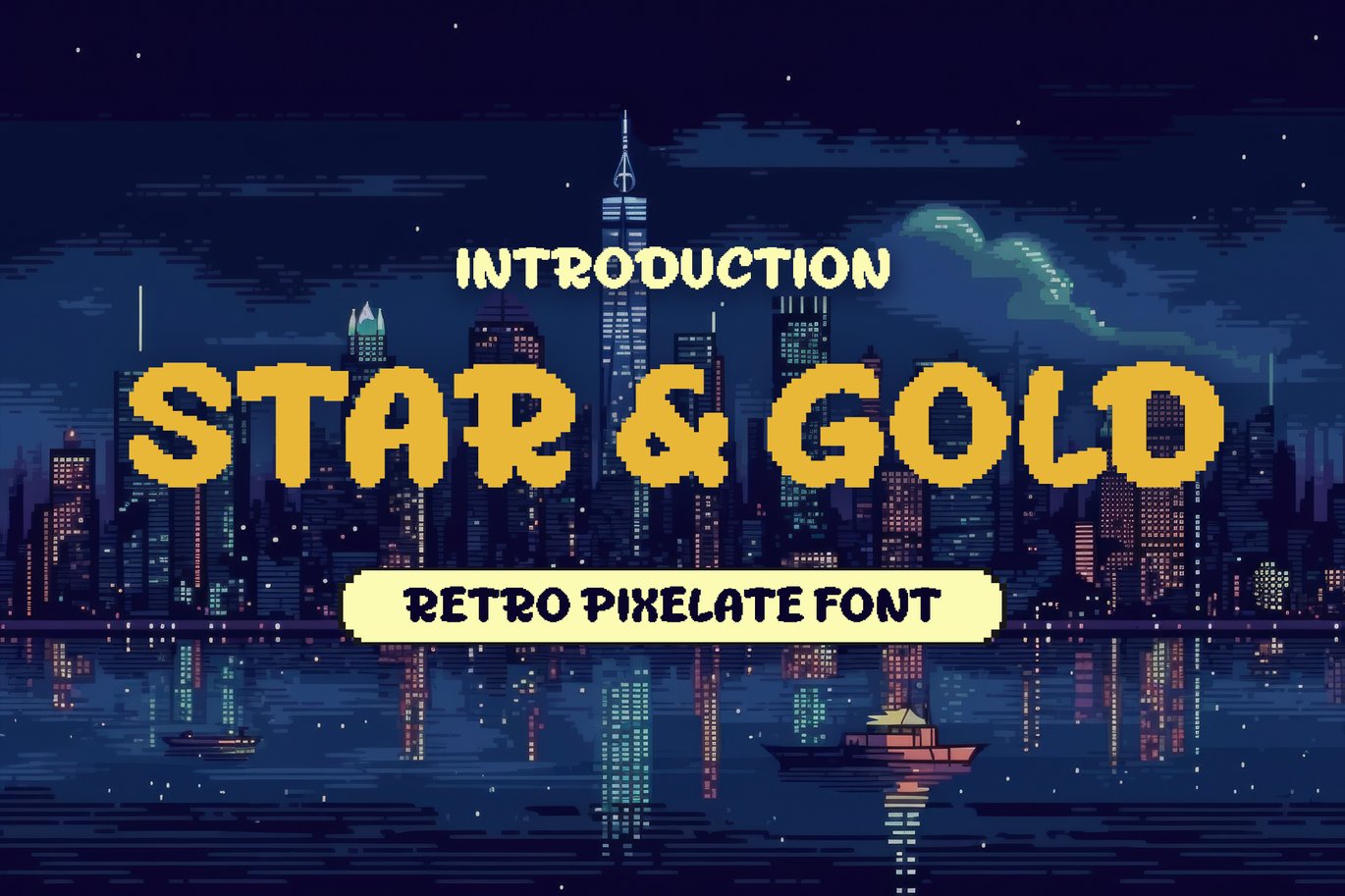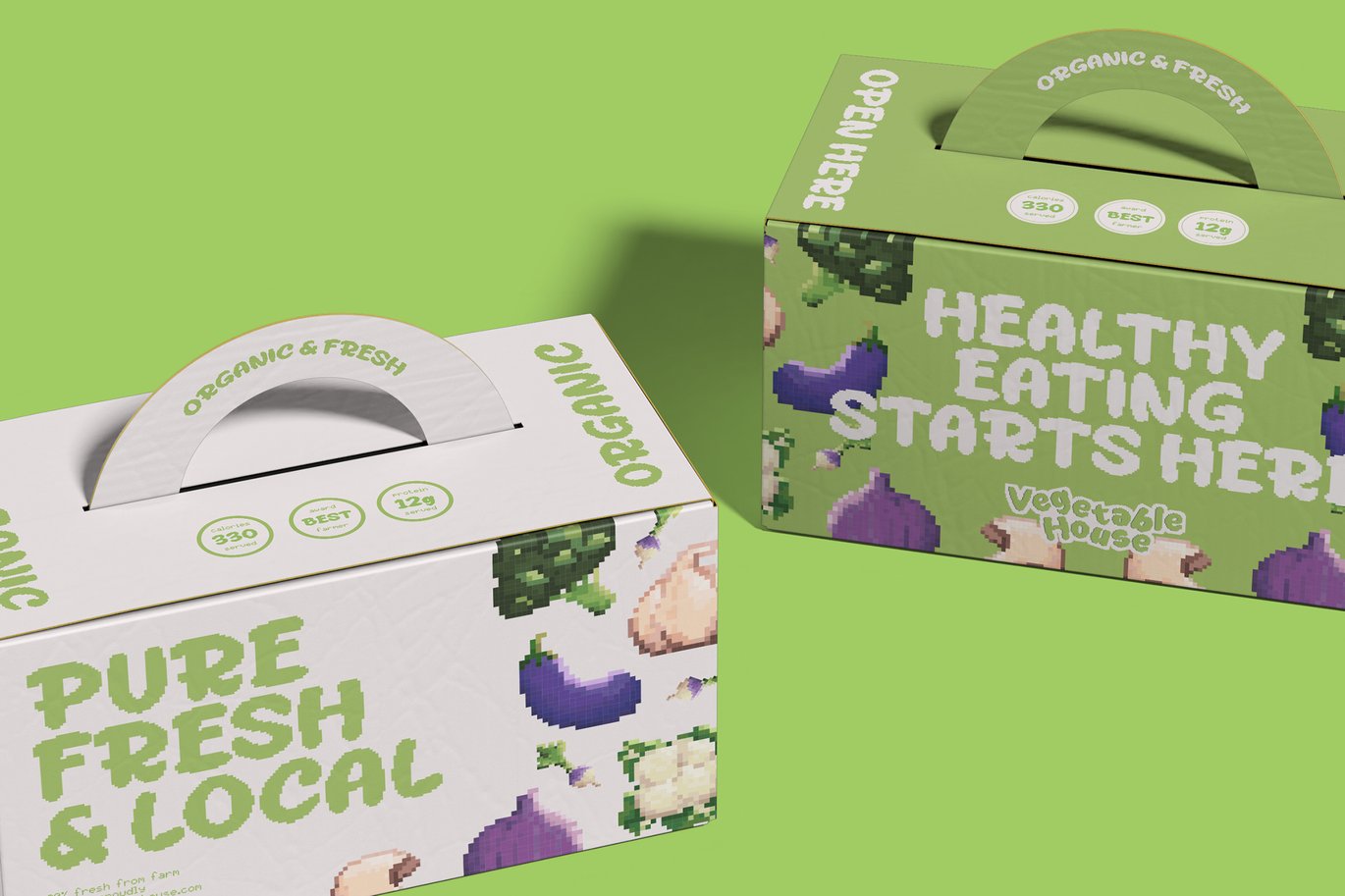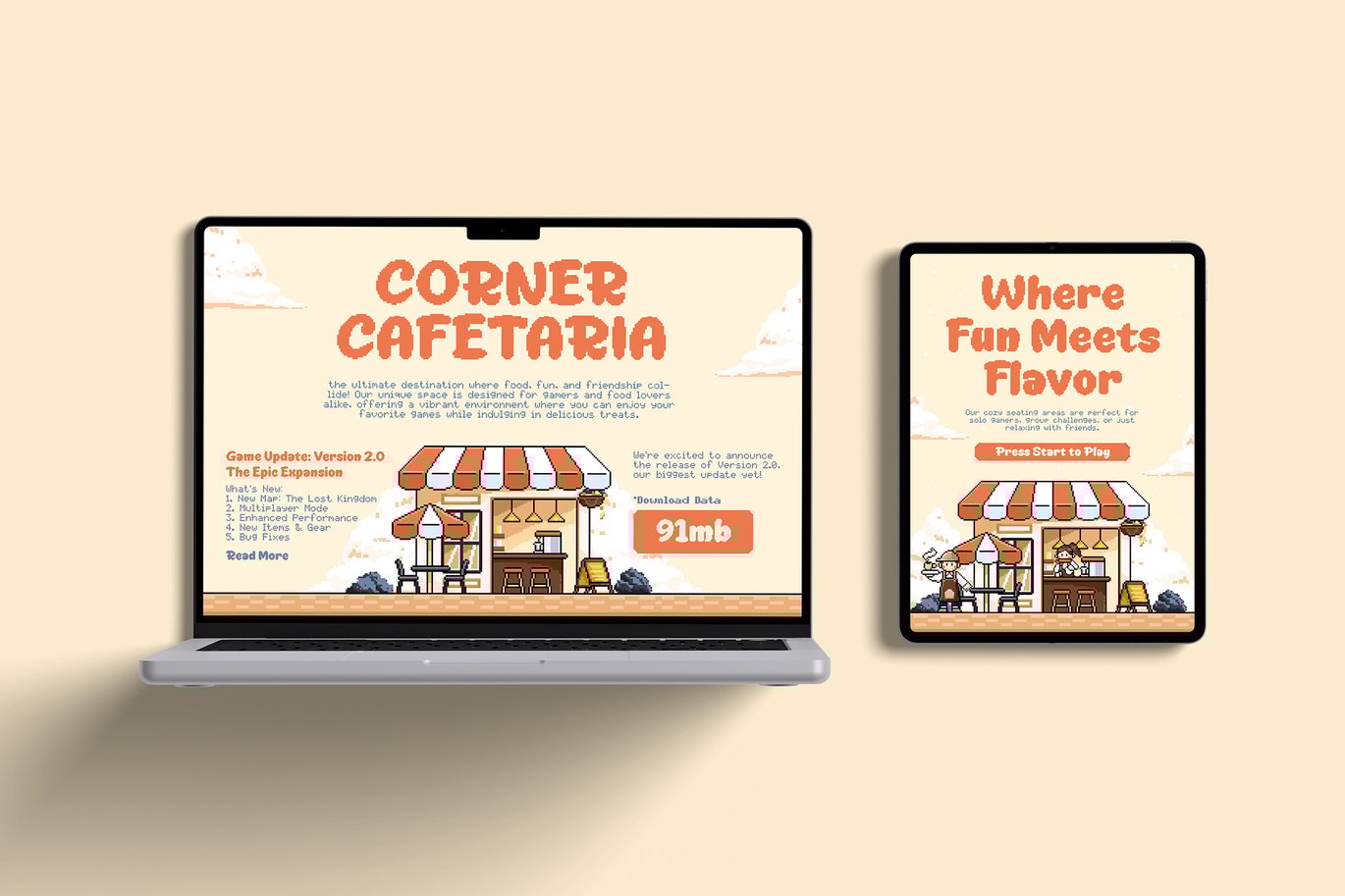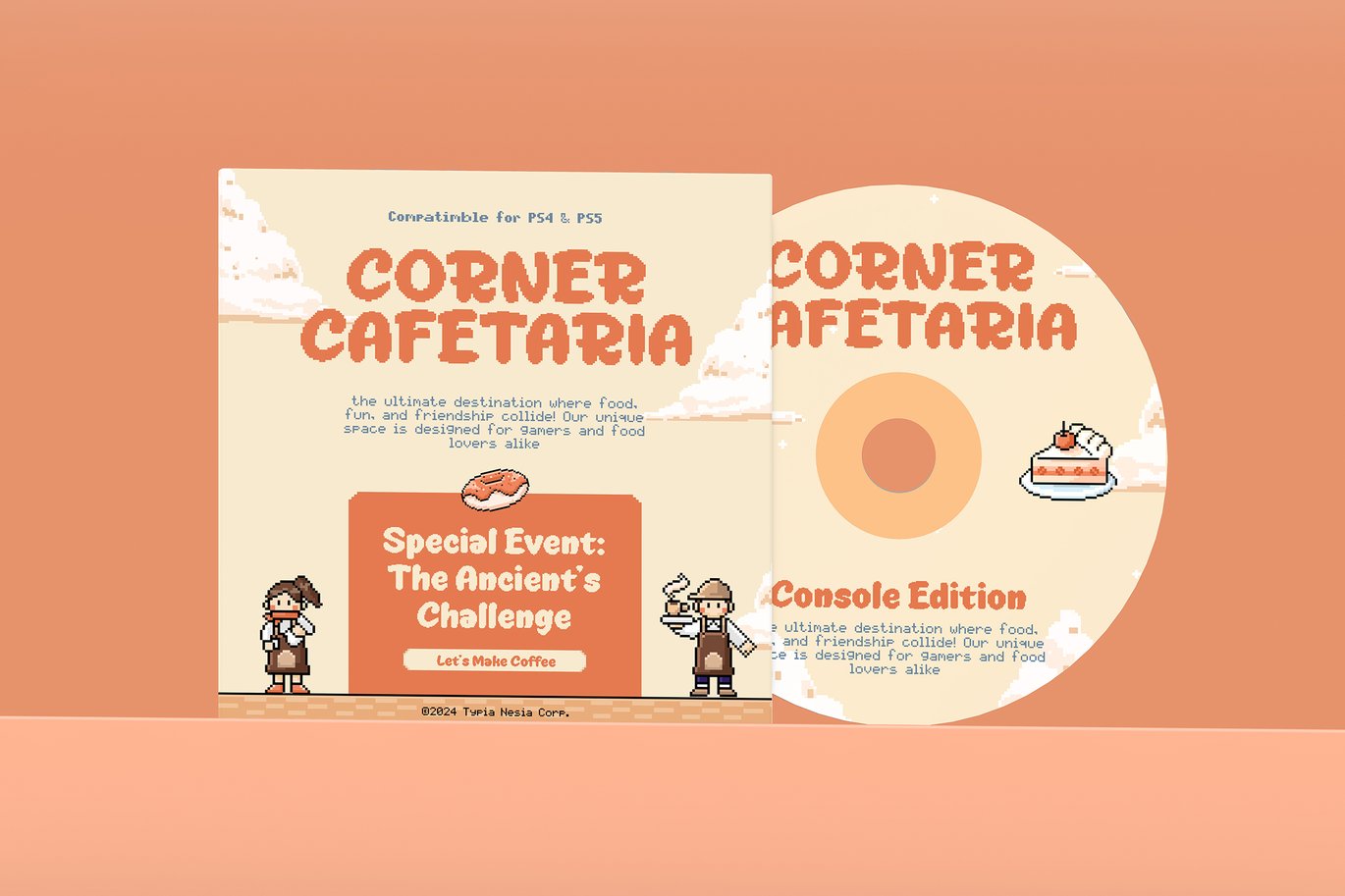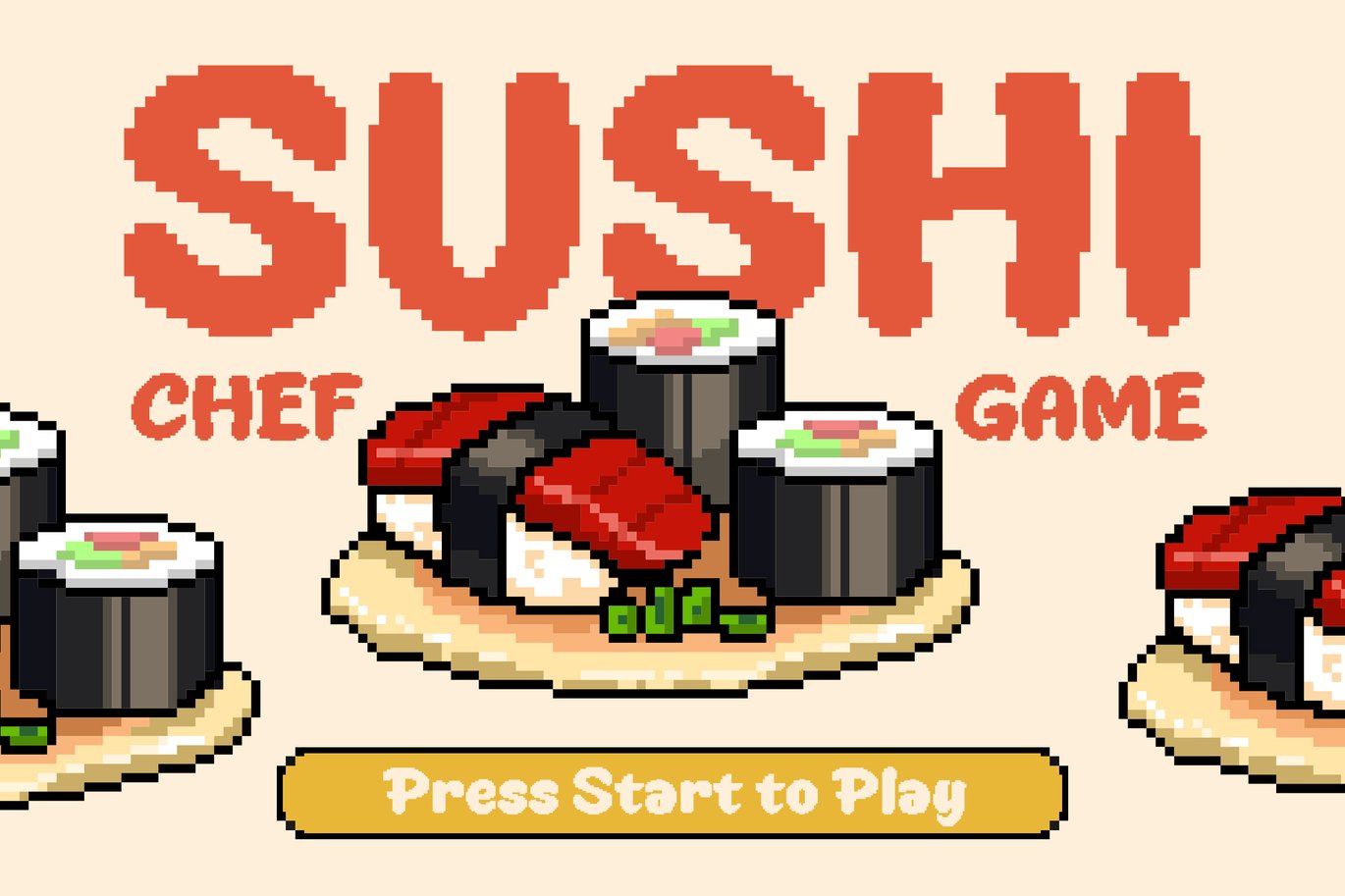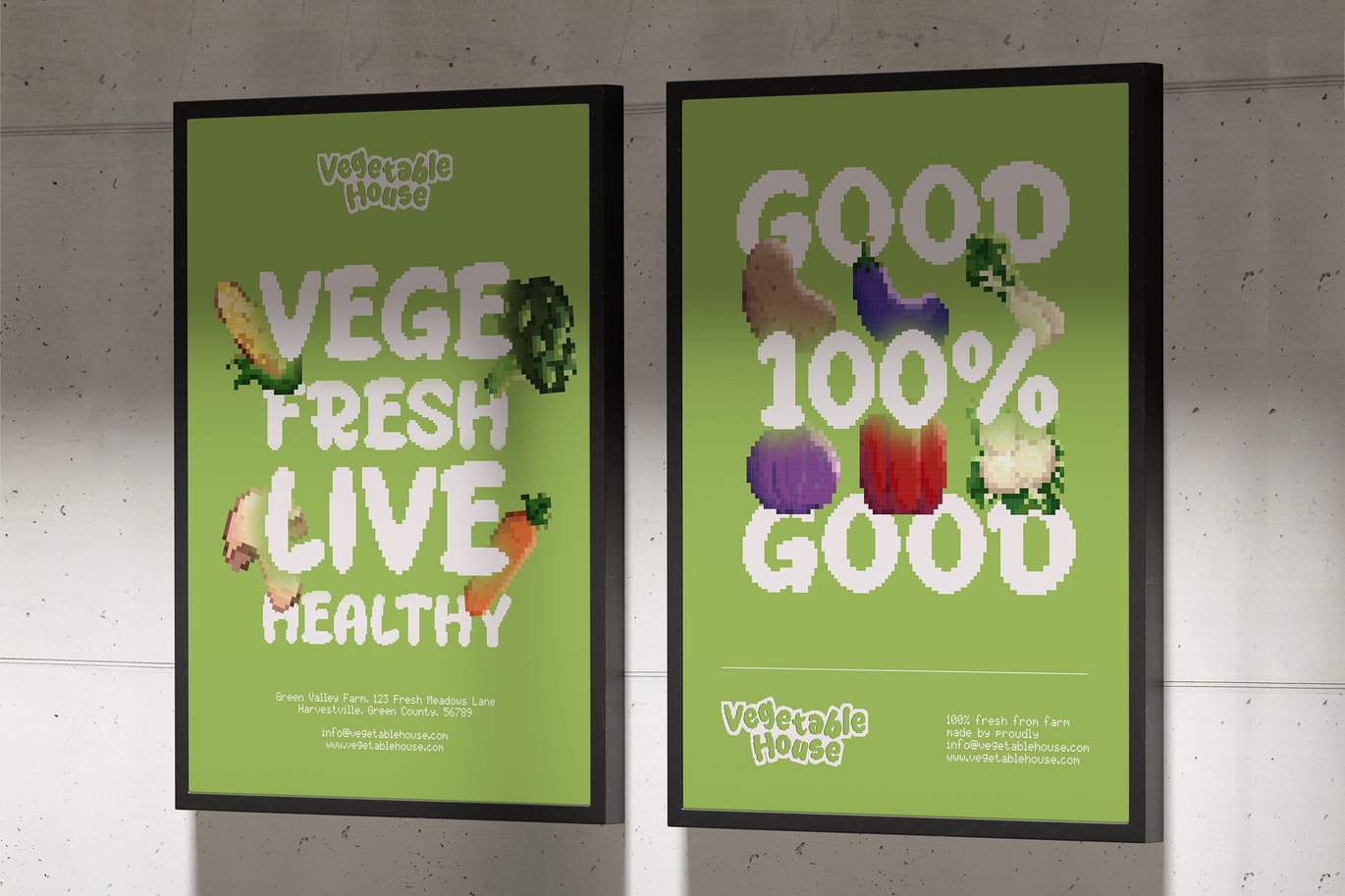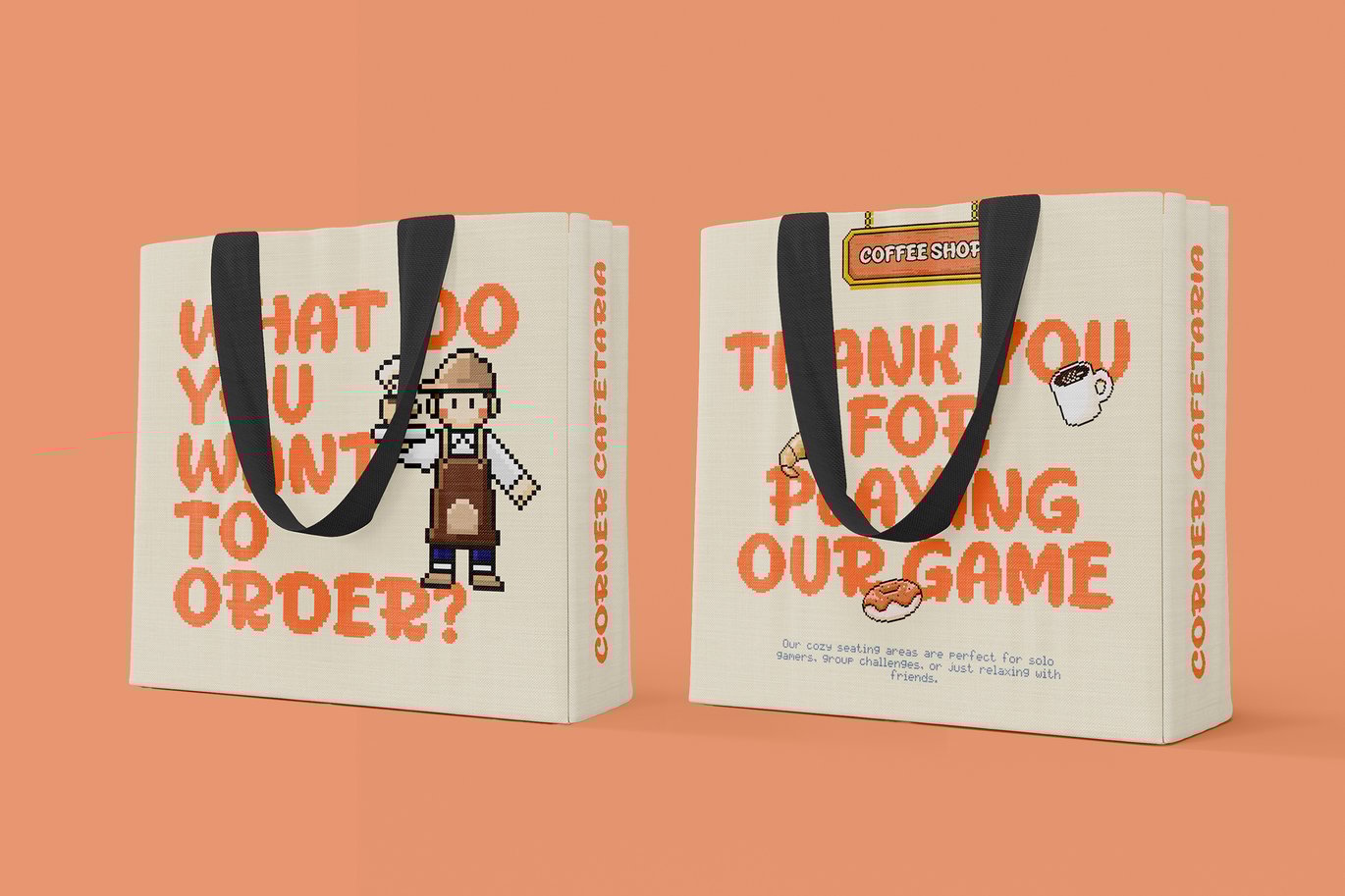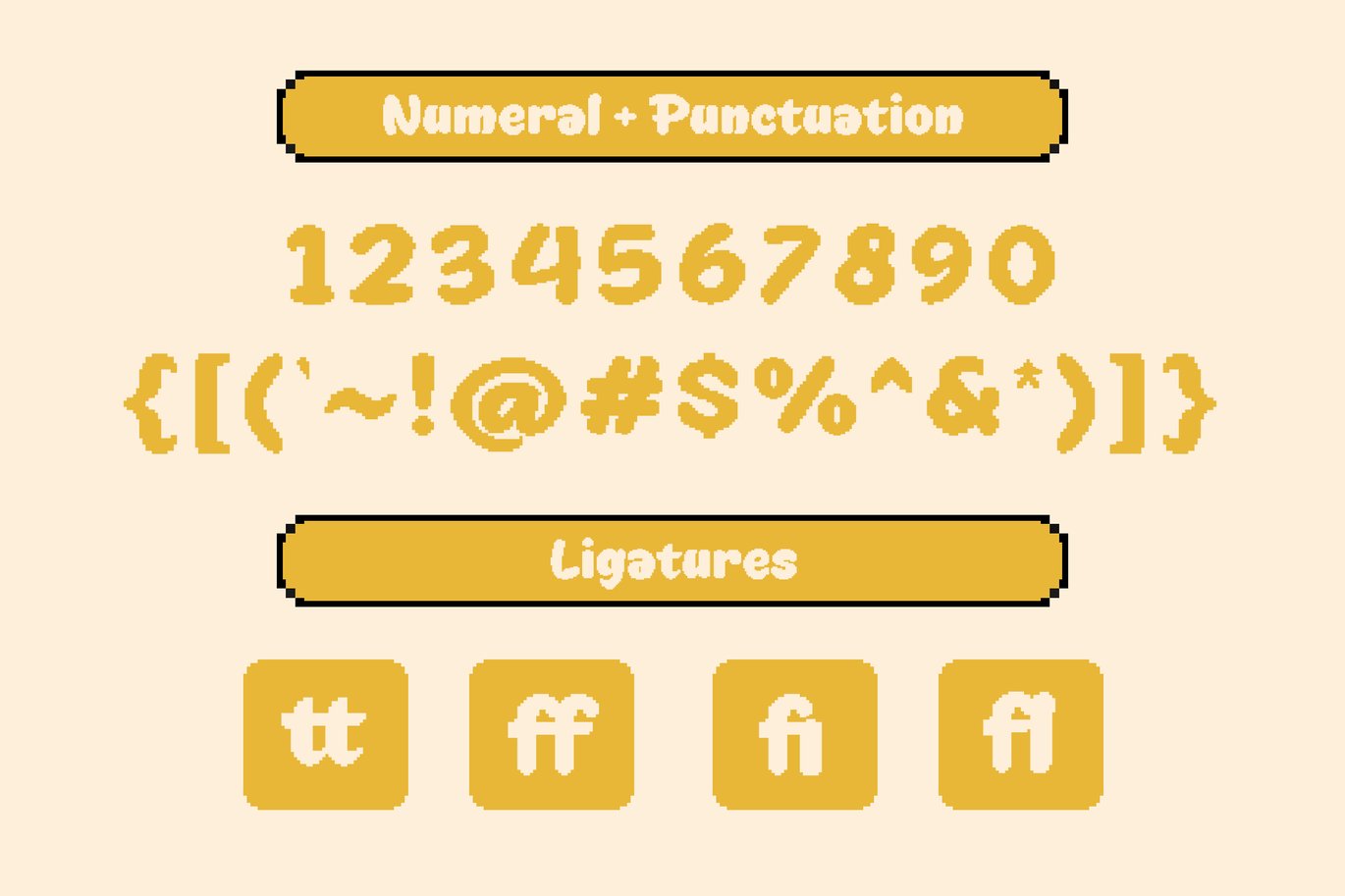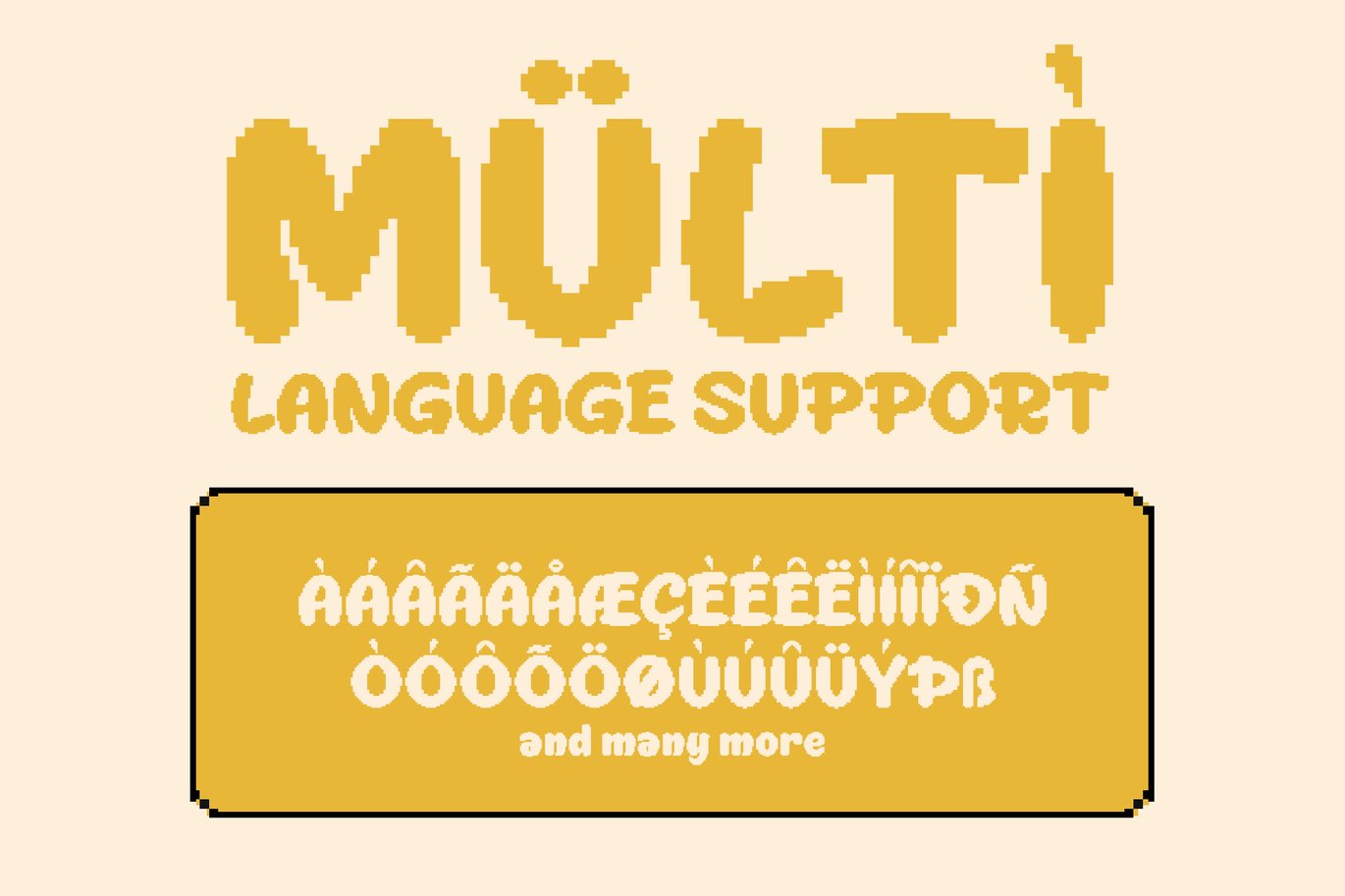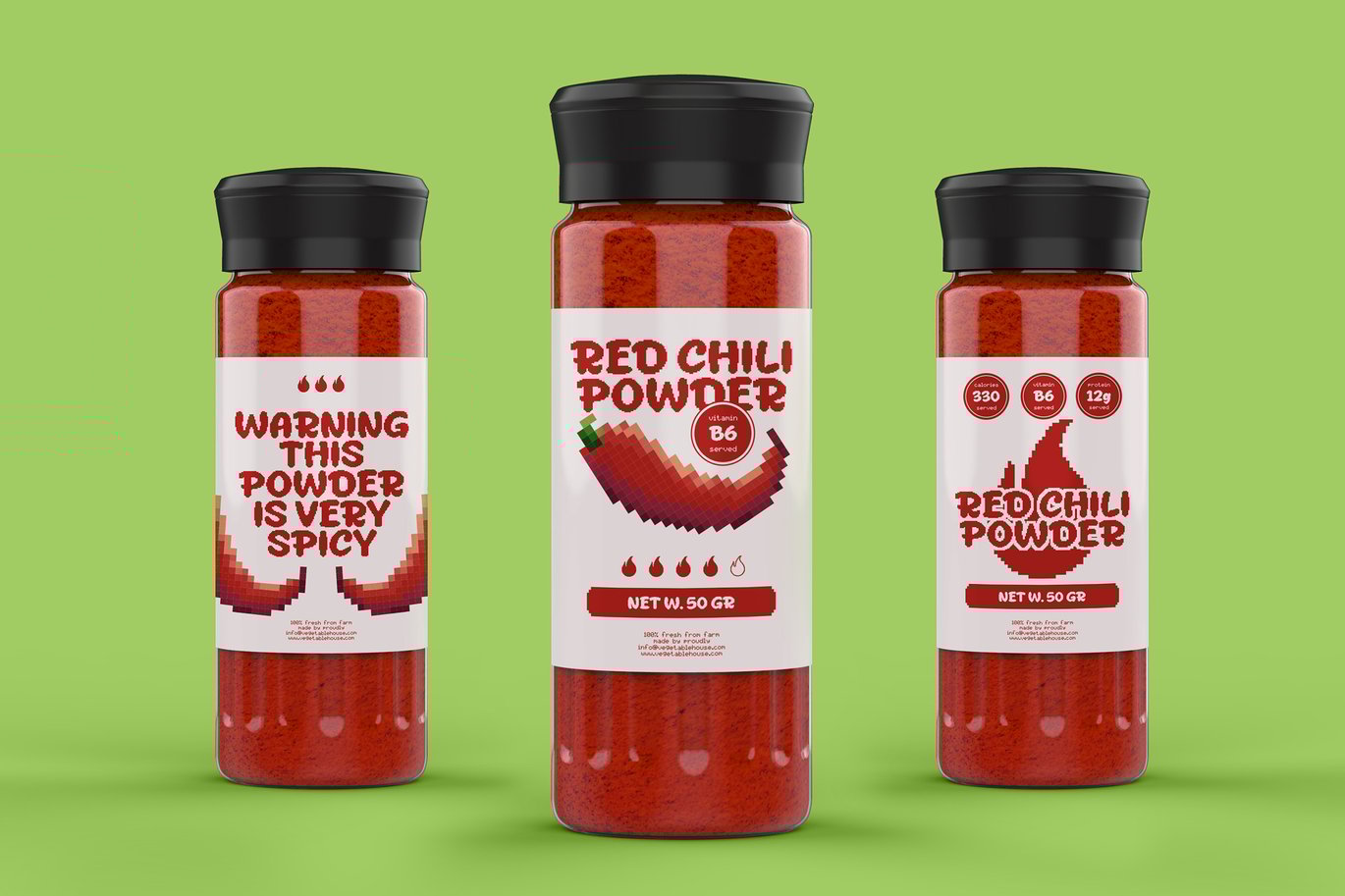
Star & Gold – Modern Retro Pixelate Game Font
Star & Gold – Modern Retro Pixelate Font – Playful Digital Game Display Font
Star & Gold is a Retro Pixelate Font that brings nostalgic and modern design. The retro style is infused with pixel-perfect precision, evoking memories of classic video games while adding a playful, digital flair to your creative projects. Ideal for video game graphics, tech-themed designs, retro-inspired posters, branding, logos, packaging design, and websites. Whether you’re designing a game interface or creating eye-catching typography for a digital event, Star & Gold delivers a bold, fun look. Comes with uppercase and lowercase letters, punctuation, numerals, ligatures, alternate characters, and full multilingual support. The pixelated design is both creative and functional, allowing for varied design applications while maintaining readability. Star & Gold is expertly crafted for designers who want to capture a retro gaming vibe or fun digital theme in their work. With comprehensive features and pixel-perfect styling, this font adds a unique, playful touch to any project.